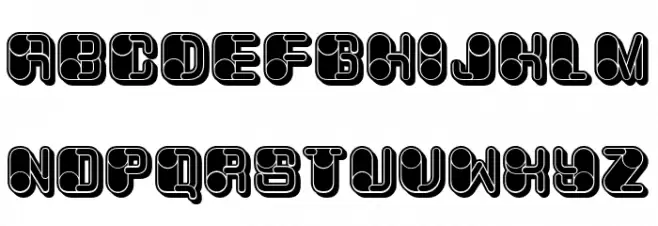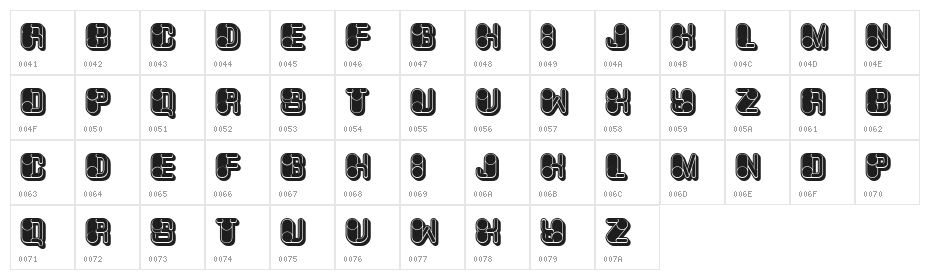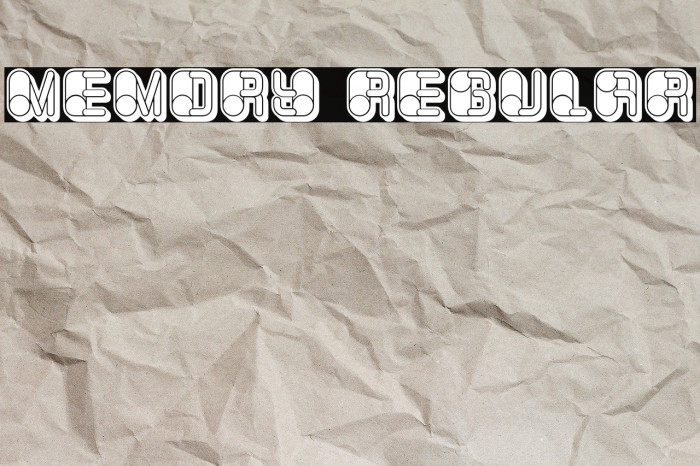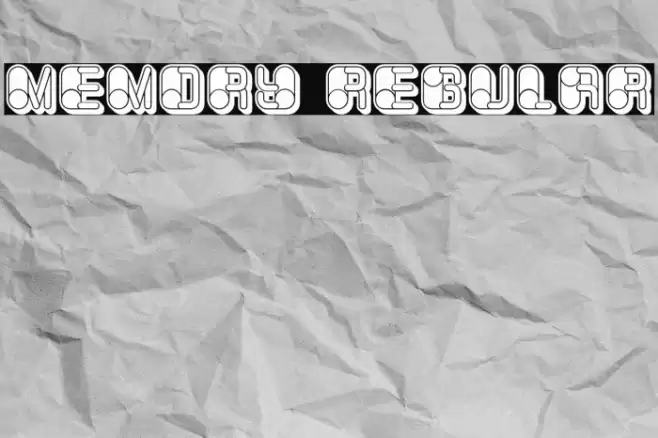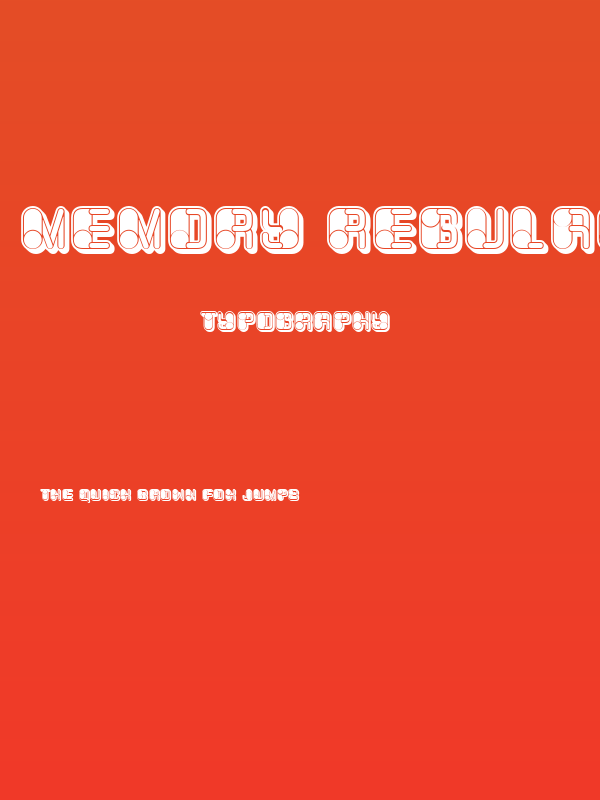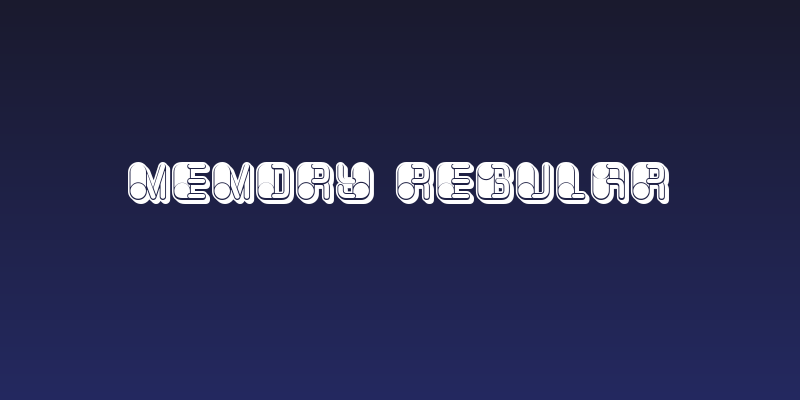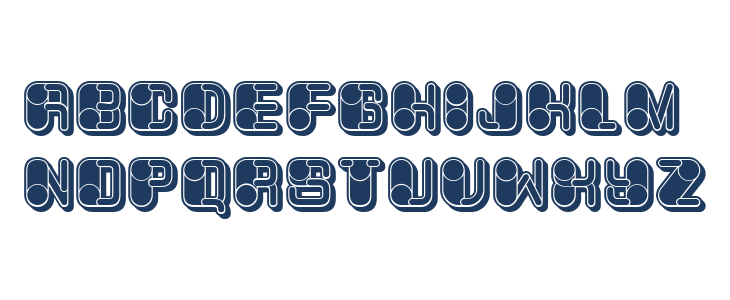
Memory Regular Font
Memory Regular Description
This font features a bold and playful design with a unique geometric style. Each character is crafted with a combination of rounded and angular elements, creating a striking visual effect. The letters are outlined, giving them a three-dimensional appearance that stands out on any page. The font's design is consistent across all characters, maintaining a cohesive look that is both modern and retro. Its boldness and distinct style make it ideal for eye-catching headlines and creative projects.